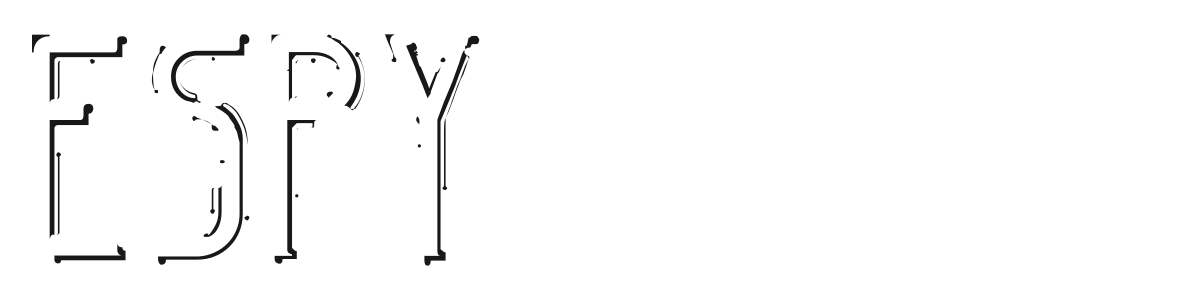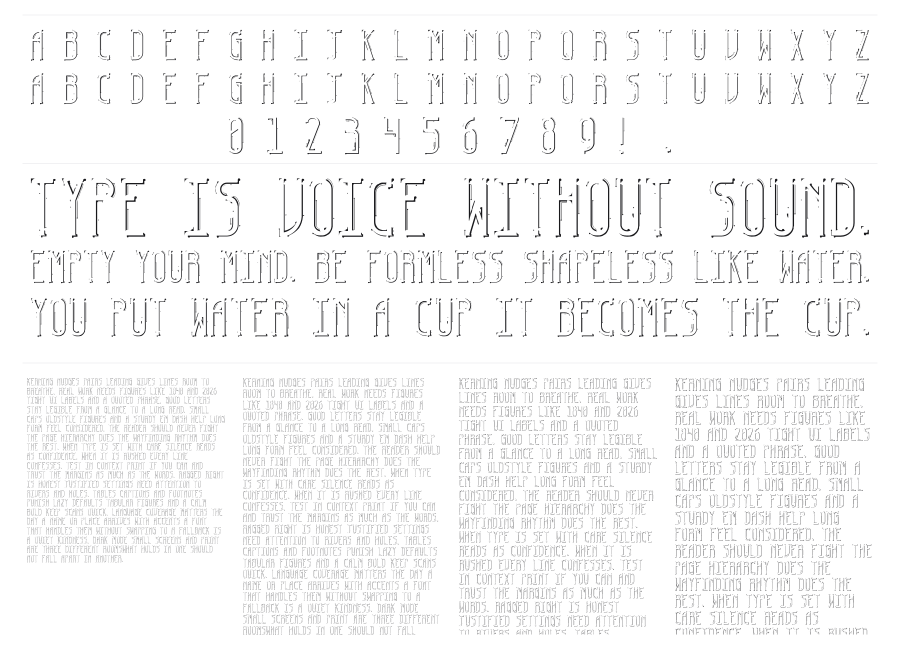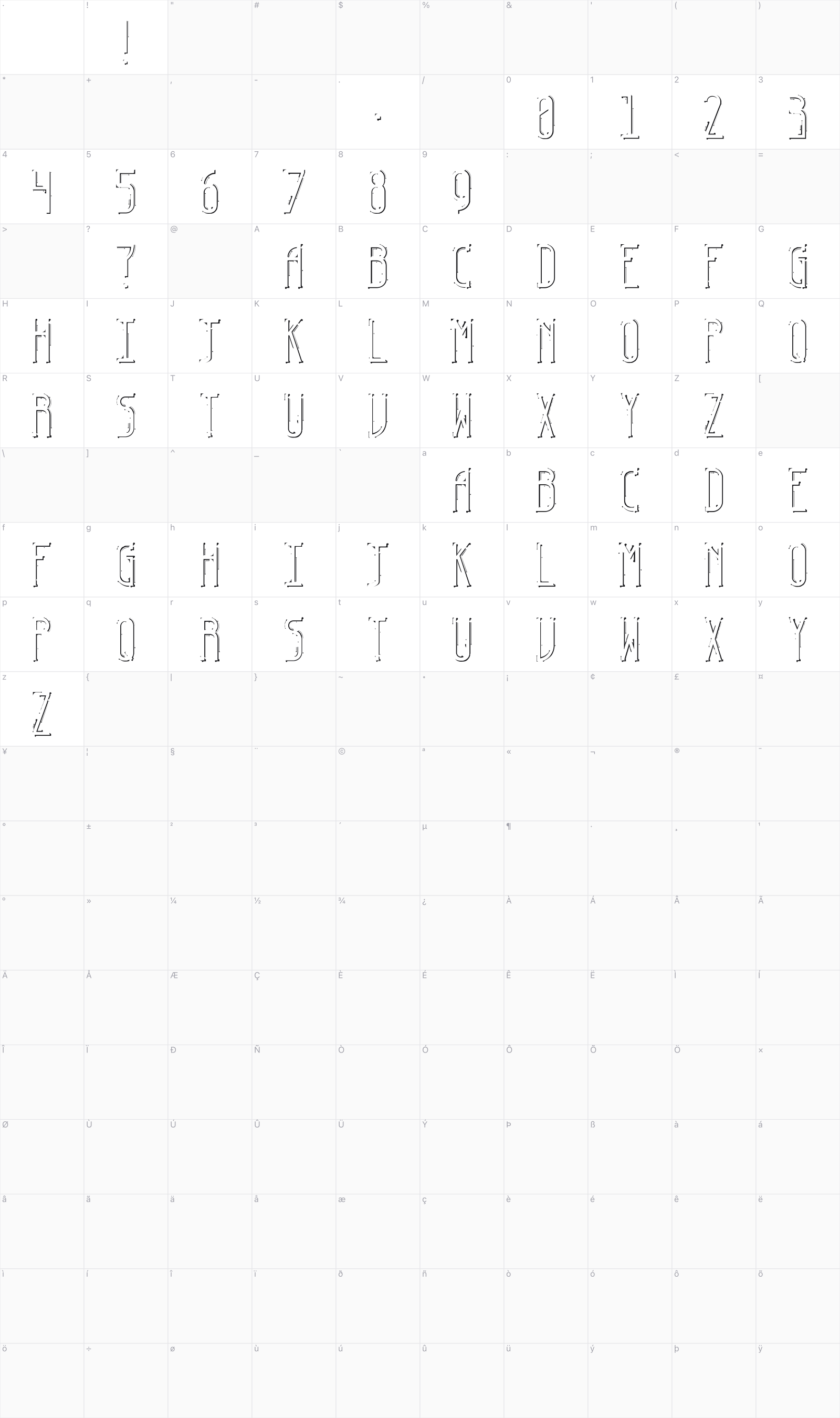
Espy
Espy is a condensed display typeface inspired by the shadows and mechanical intricacies of a vintage lighthouse bulb. Each character is built from layered outlines that mimic the way heavy light casts depth, with subtle distress textures that suggest aged metal and worn print. The result sits somewhere between Art Deco signage and industrial illustration, built specifically for logos and large-scale graphic applications.